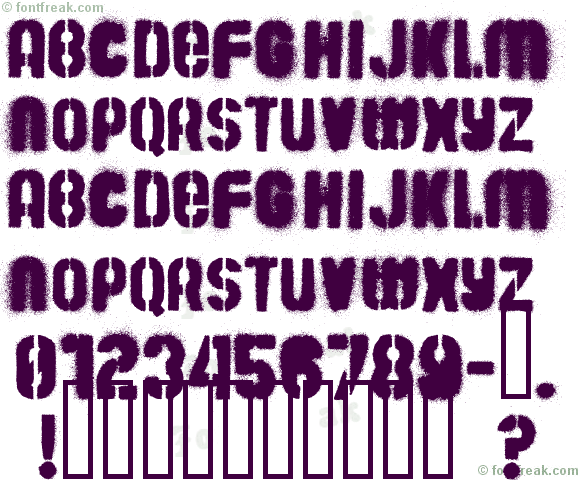
Barrio 30
Barrio 30 by Clement Nicolle is a striking display font that falls into the decorative category. Its unique visual style is characterized by a bold, graffiti-like appearance, with a slightly distressed texture that adds an urban edge. The stroke weight is consistent yet varied enough to create an eye-catching contrast, making it stand out in various applications. The spacing between the letters is thoughtfully designed, ensuring readability while maintaining a playful vibe that captivates the viewer's attention. The decorative elements evoke a sense of street art, making this font ideal for projects that aim to convey a contemporary, edgy aesthetic.
This font is particularly well-suited for a variety of creative projects. It shines in applications such as music event posters, where its energetic style can help capture the spirit of the occasion. Additionally, Barrio 30 is excellent for restaurant menus that want to convey a casual yet trendy atmosphere. It's also a fantastic choice for graphic design projects aimed at youth culture, such as skateboarding brands or urban clothing lines. Small business owners looking to create distinctive branding materials will find this font equally appealing, as it adds a unique flair to logos and promotional materials. Content creators can leverage its bold appearance for social media graphics that demand attention.
The target audience for Barrio 30 includes graphic designers, small business owners, and content creators who seek a font that embodies creativity and modernity. The Barrio 30 font free download option makes it accessible for those who wish to experiment with its dynamic style. Ultimately, what sets Barrio 30 apart is its ability to merge artistic expression with functional design, making it a versatile choice for any project needing a punch of personality.